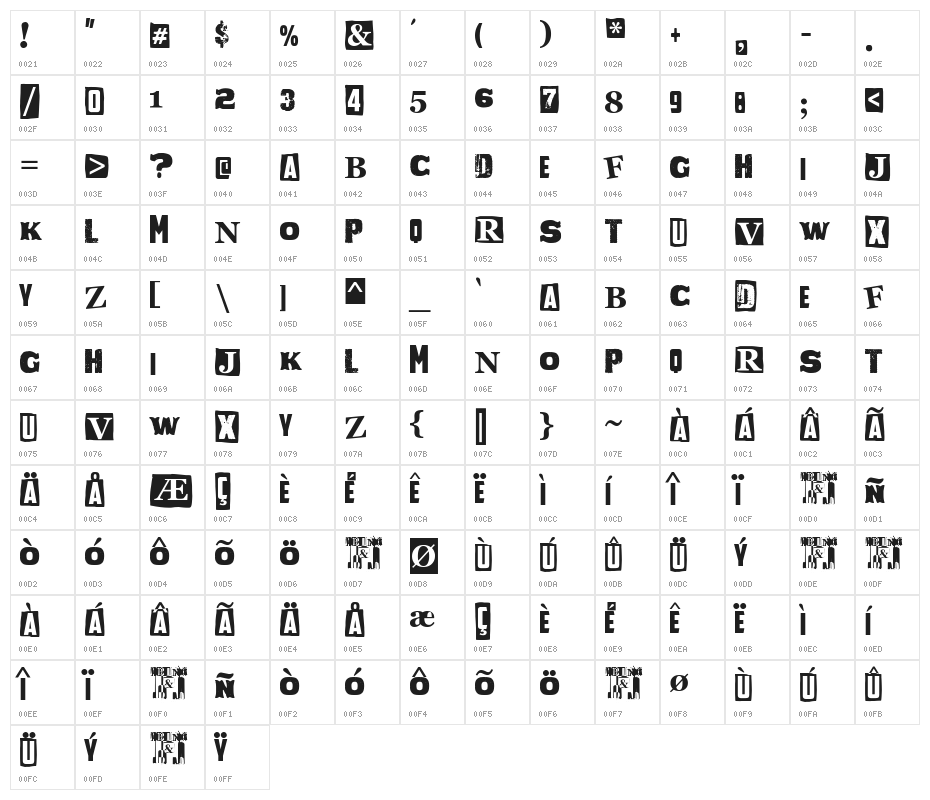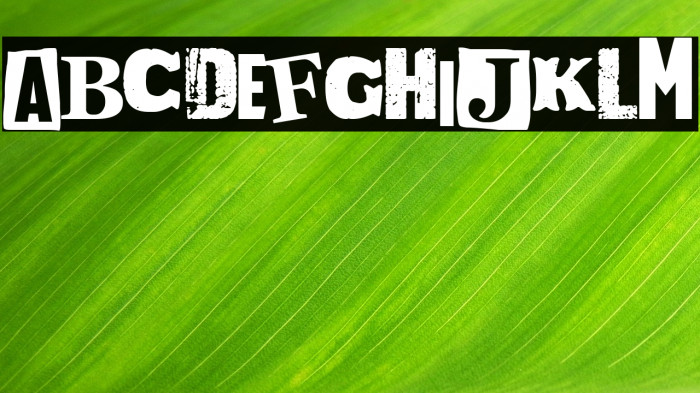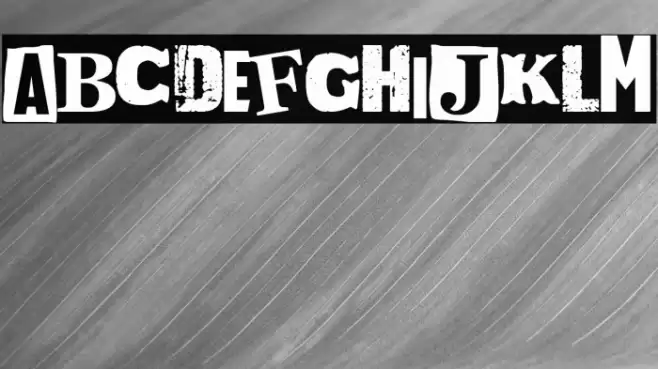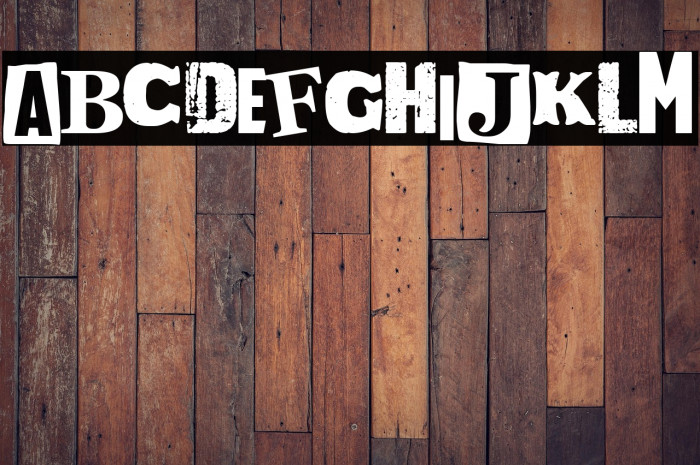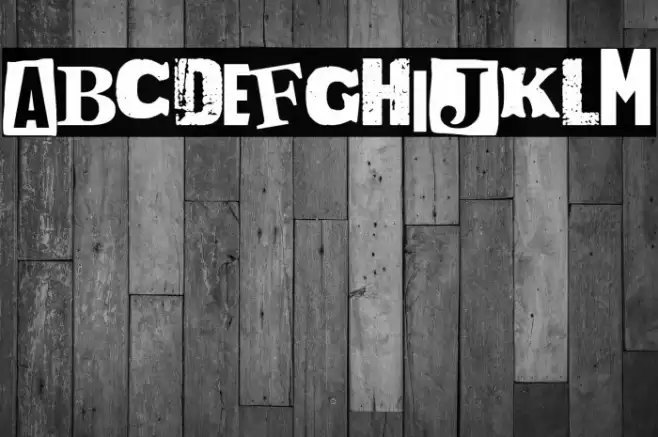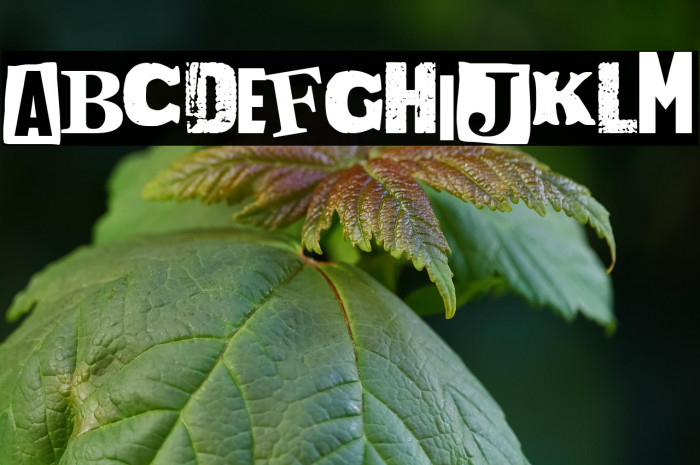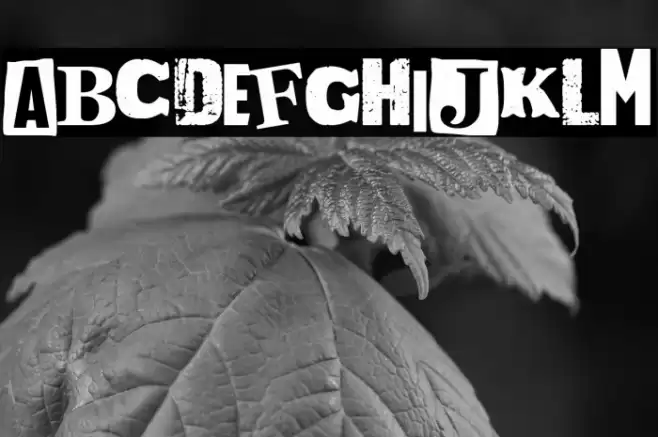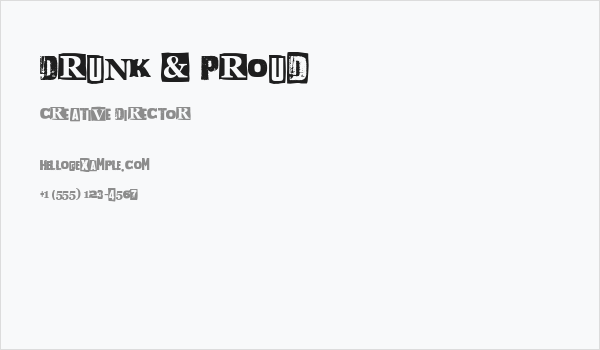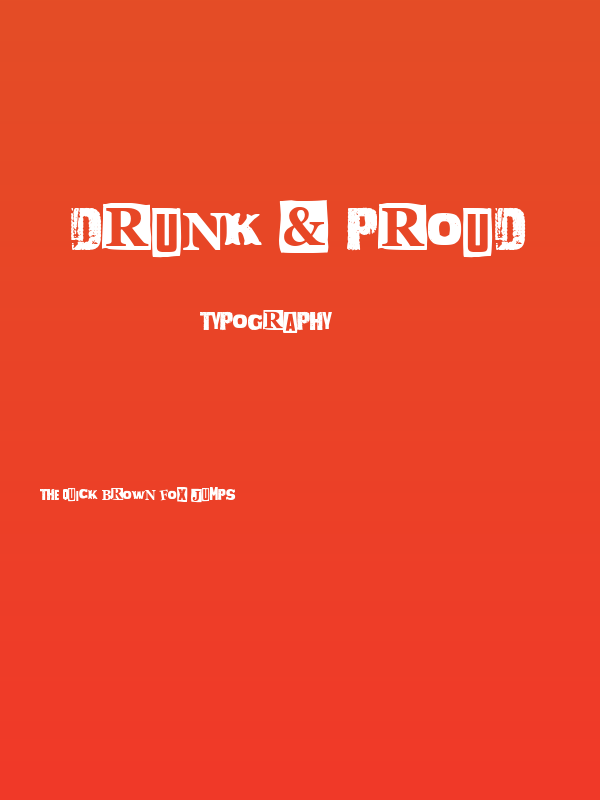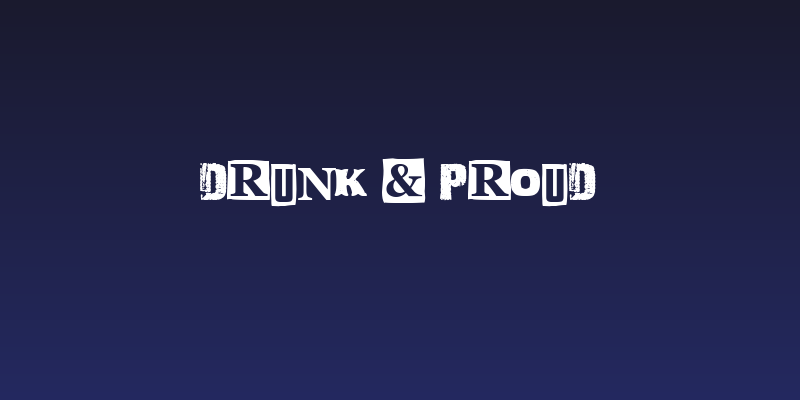
Drunk & Proud Font
This font features a bold and eclectic style, reminiscent of cut-out letters from magazines or newspapers, creating a ransom note effect. Each character is uniquely designed with varying textures, including distressed, solid, and outlined styles, giving it a chaotic yet artistic appearance. The uppercase and lowercase letters maintain a playful inconsistency, adding to its quirky charm. Numbers and special characters follow the same unpredictable pattern, enhancing the overall dynamic feel. This font is perfect for projects that require a bold statement or an edgy, rebellious touch.
| Proposed Projects | Ideal for album covers, posters, edgy branding, and creative event invitations. |